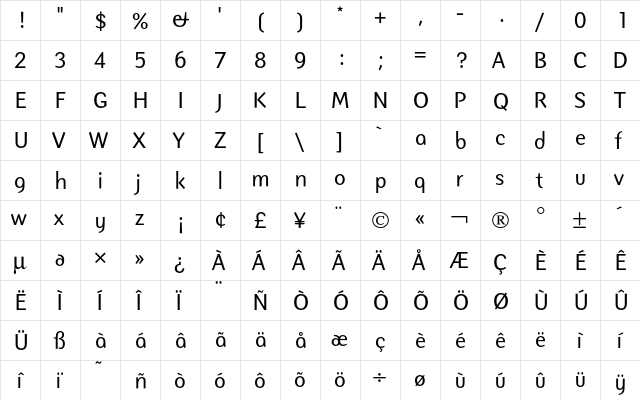
NatWest TextNormal
Design Context for NatWest Typeface
NatWest takes a measured approach to typography — its balanced proportions and neutral character make it a reliable workhorse for both digital and print work.